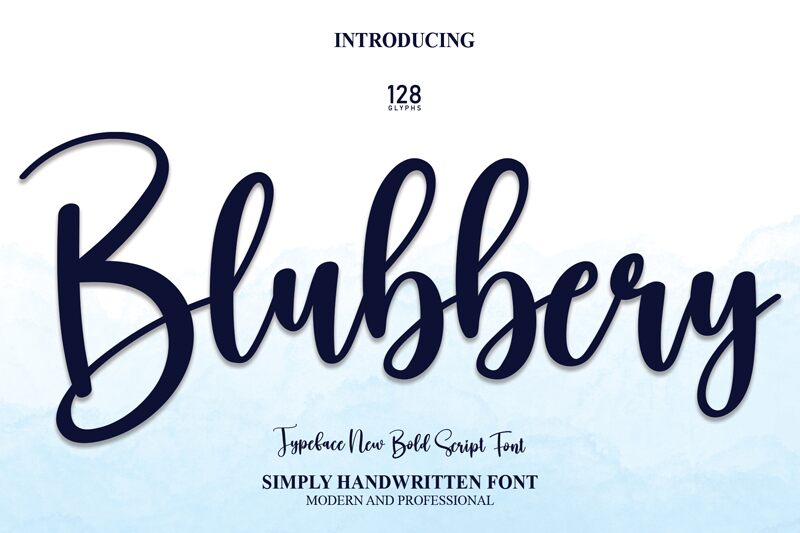
Blubbery
Blubbery, designed by Scratchones, is a charming handwritten font with a semi-light weight.
Its playful and organic style makes it perfect for children's book covers, creating whimsical greeting cards, or designing eye-catching logos for boutique brands. With Blubbery's gentle strokes and unique character variations, it adds a delightful touch to wedding invitations and personalized stationery. This versatile font also lends itself beautifully to crafting captivating social media posts, infusing your content with a touch of warmth and authenticity.
Let Blubbery bring your projects to life with its distinctive handwritten charm.
The latest style letters are perfect for wall displays, wedding invitations, social media post logos, advertisements, product packaging, product designs, labels, photography, watermarks, invitations, stationery, and any project that requires taste handwriting.